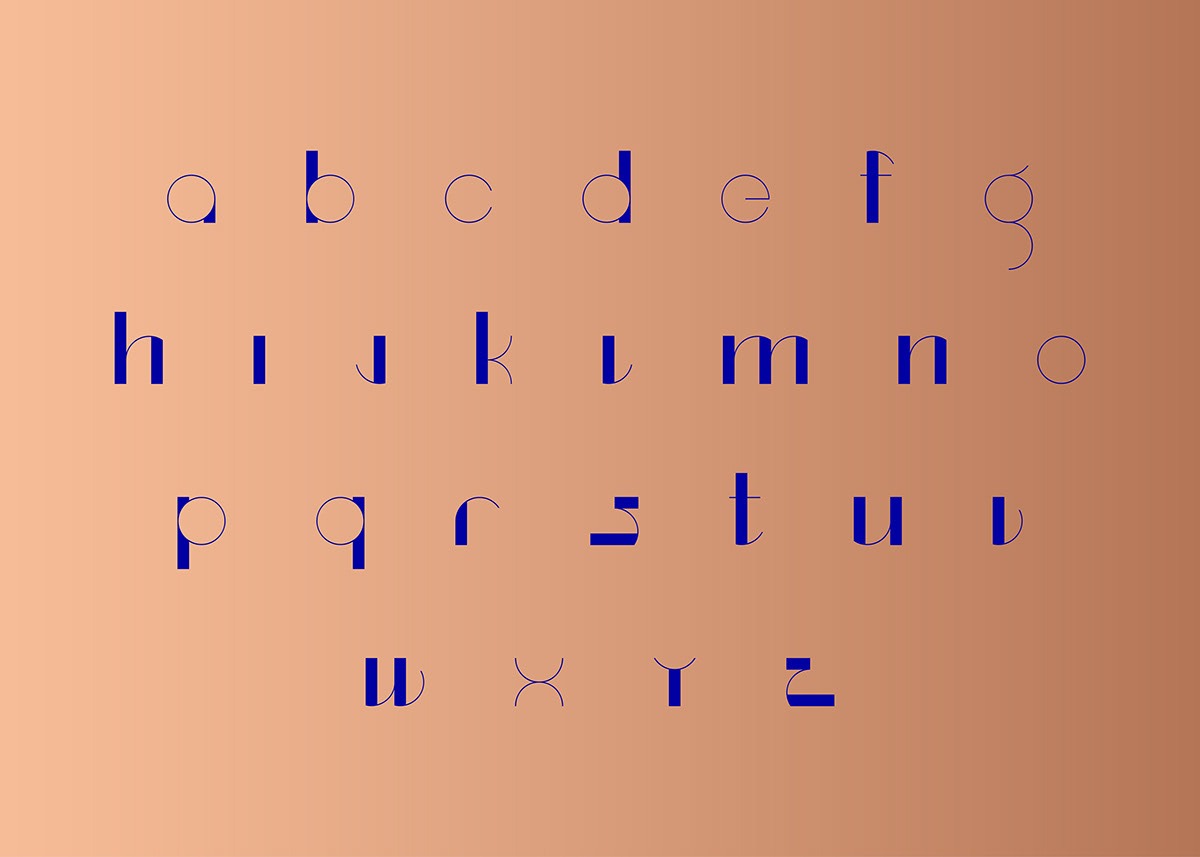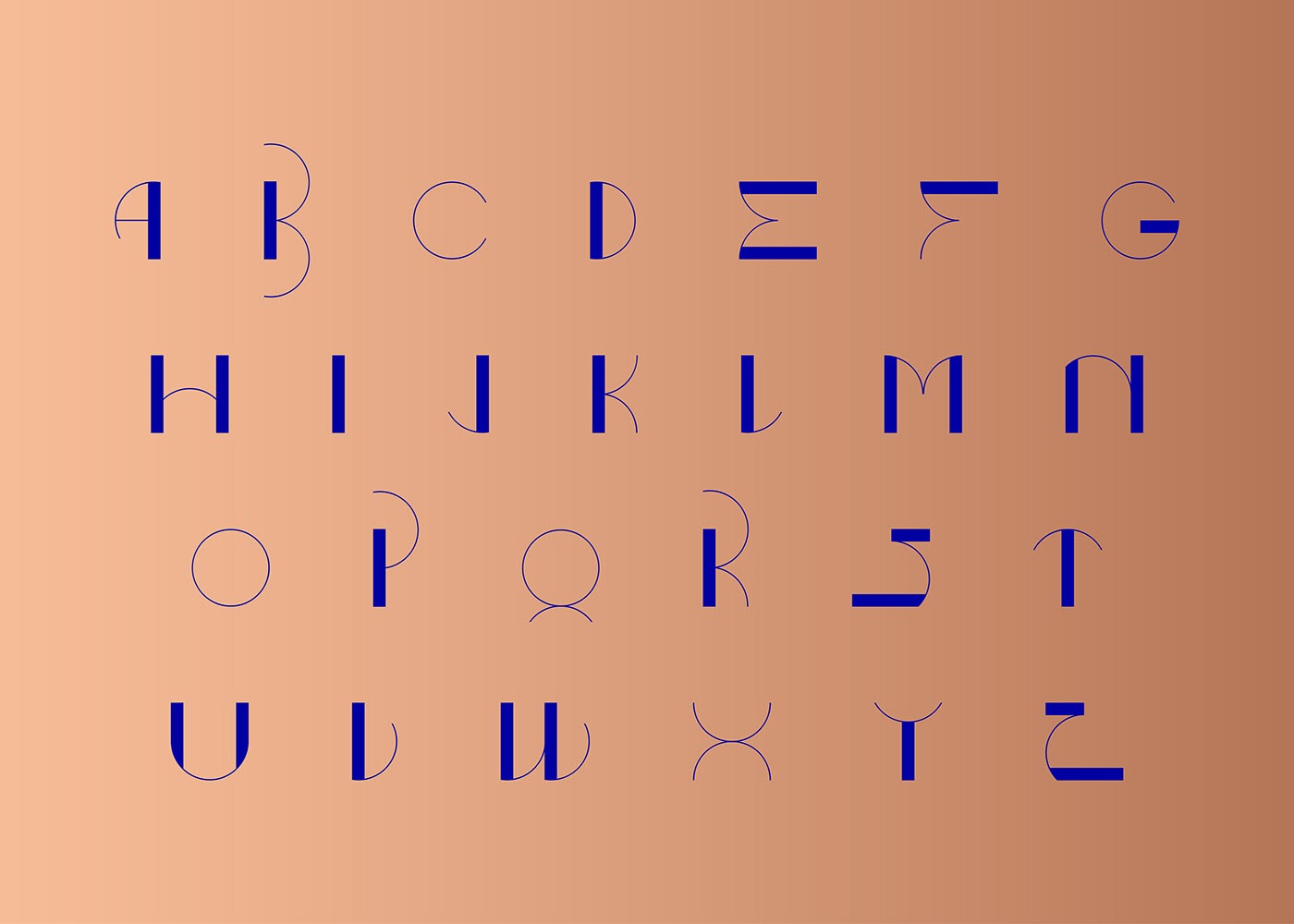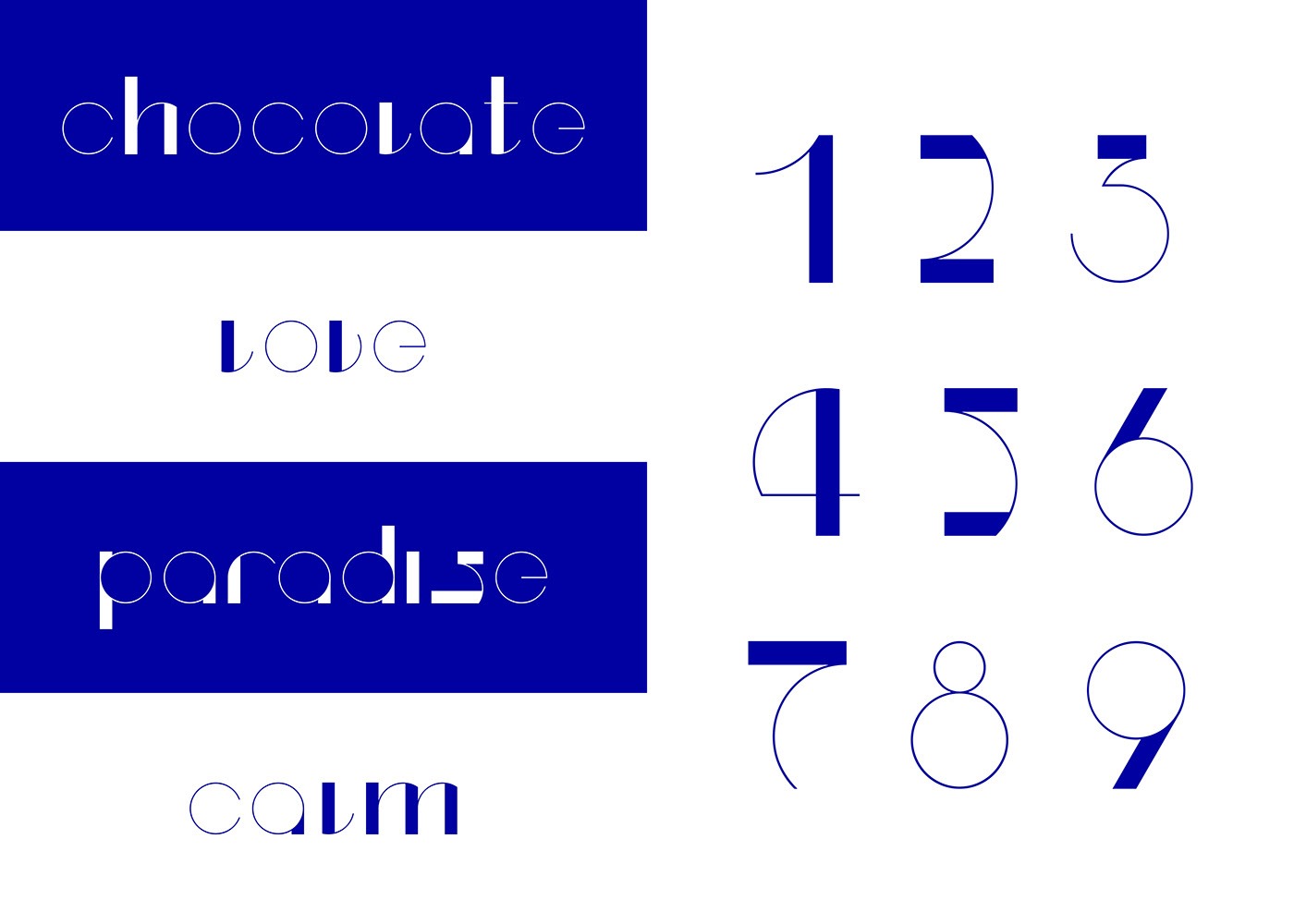
CircleFantasy Font
CircleFantasy Display Font
This font designed by Andrijana Miladinovic a vintage, and classy Display typeface. Font was created as an experiment of what can be done from circle and rectangle. Perfect for branding, posters, magazine, logos, titles…